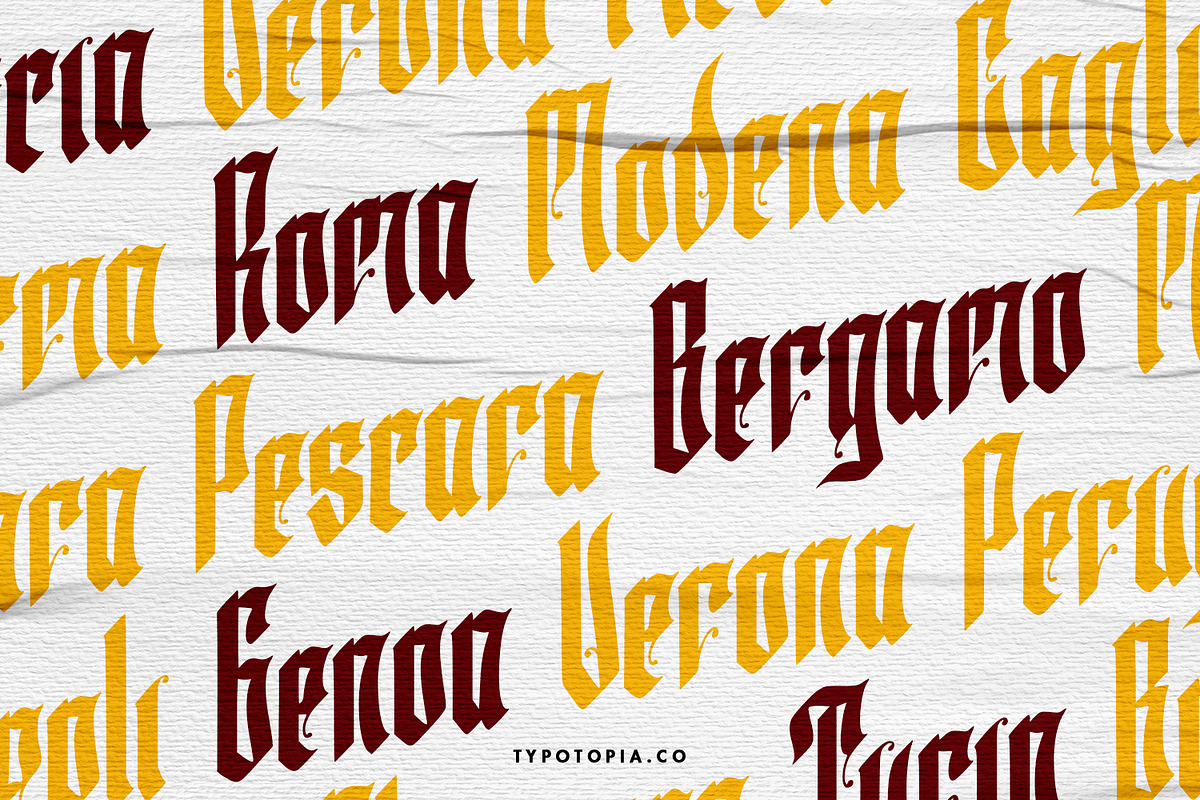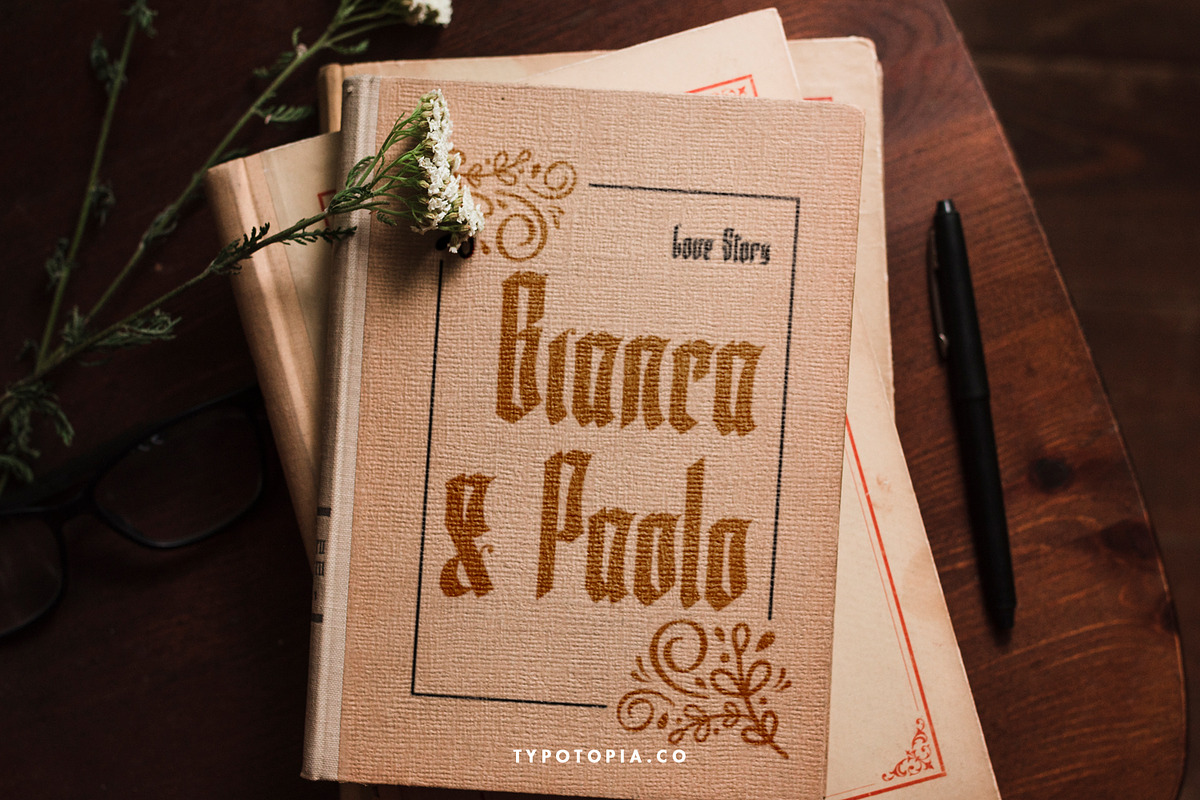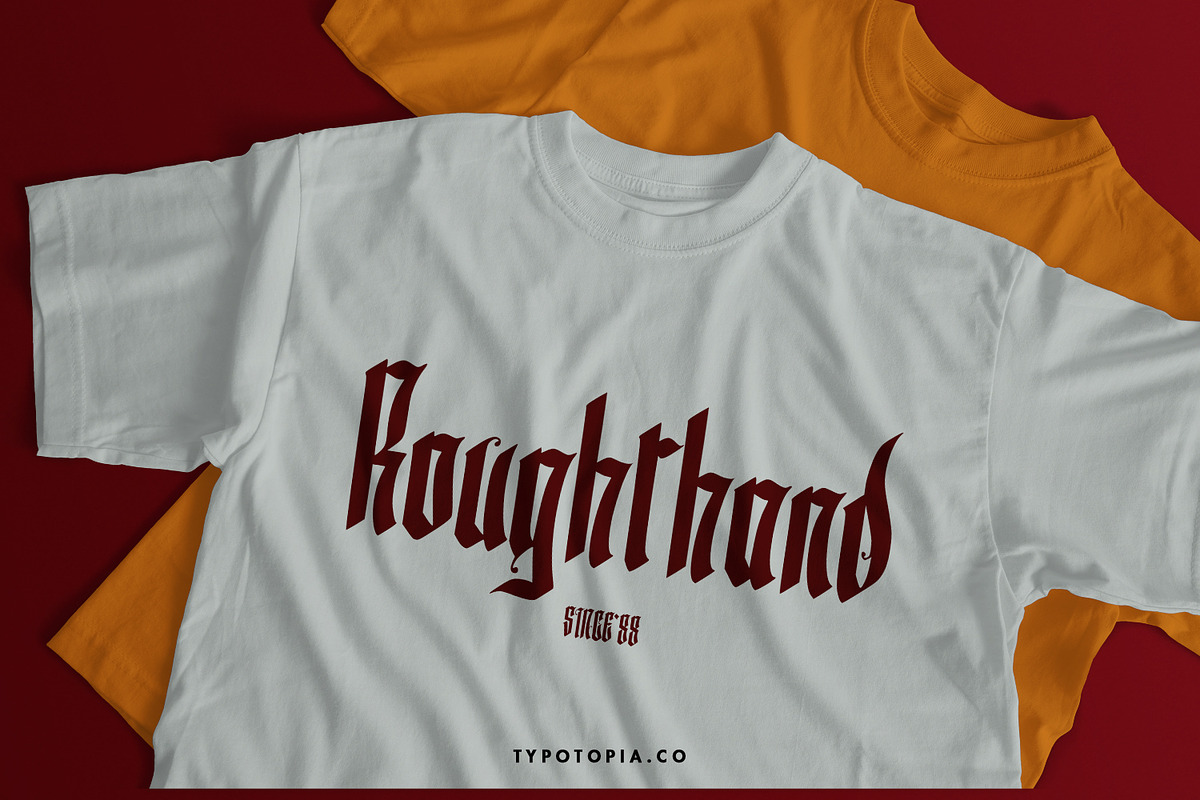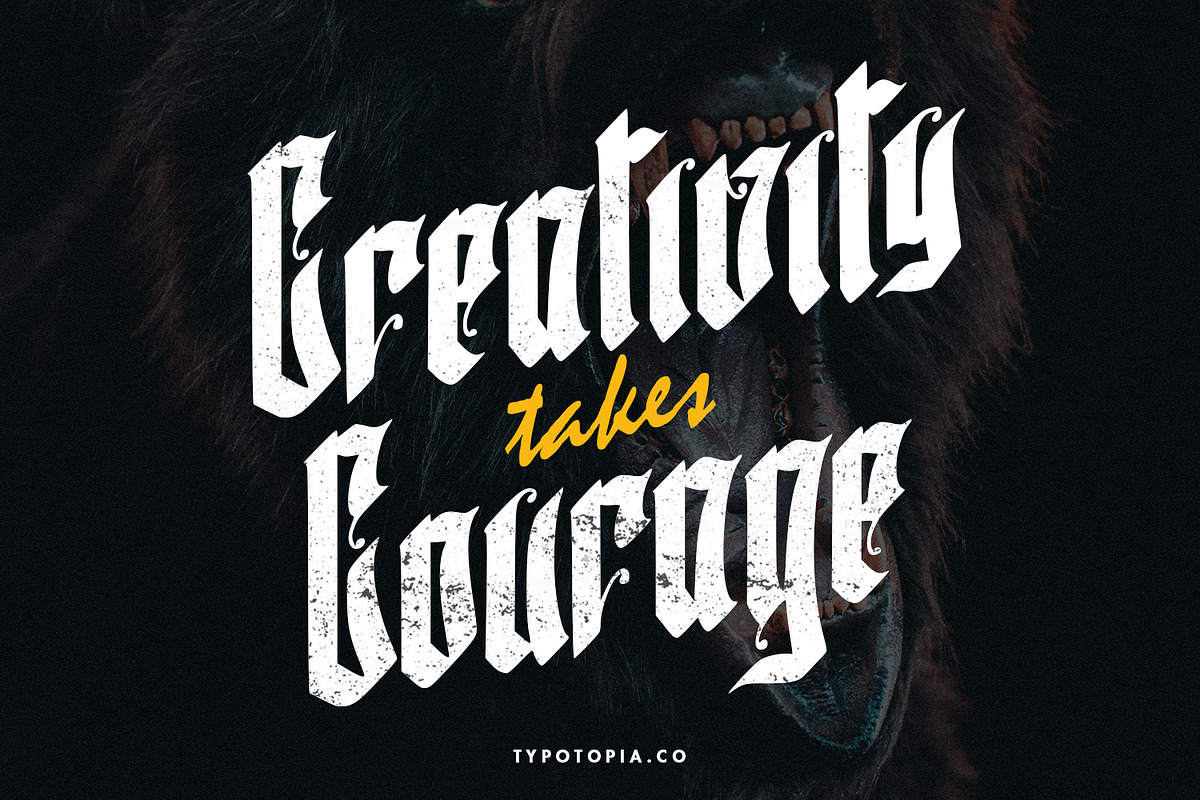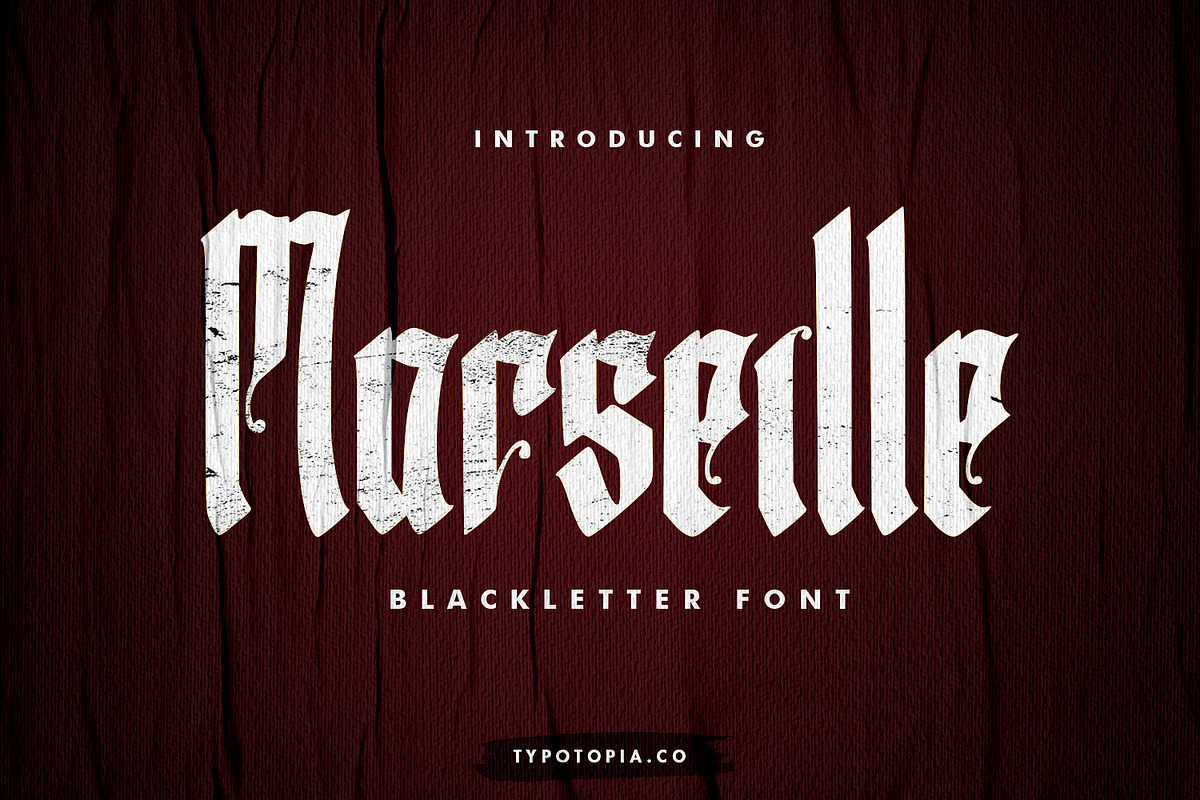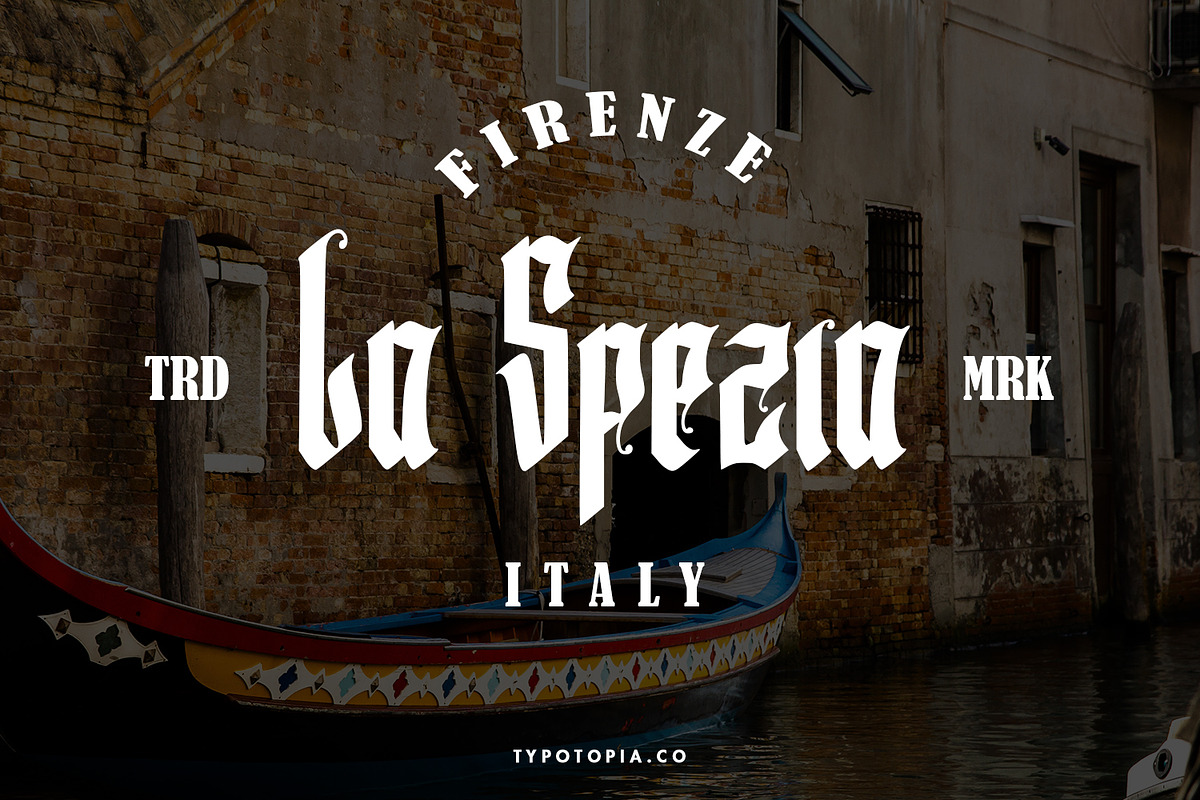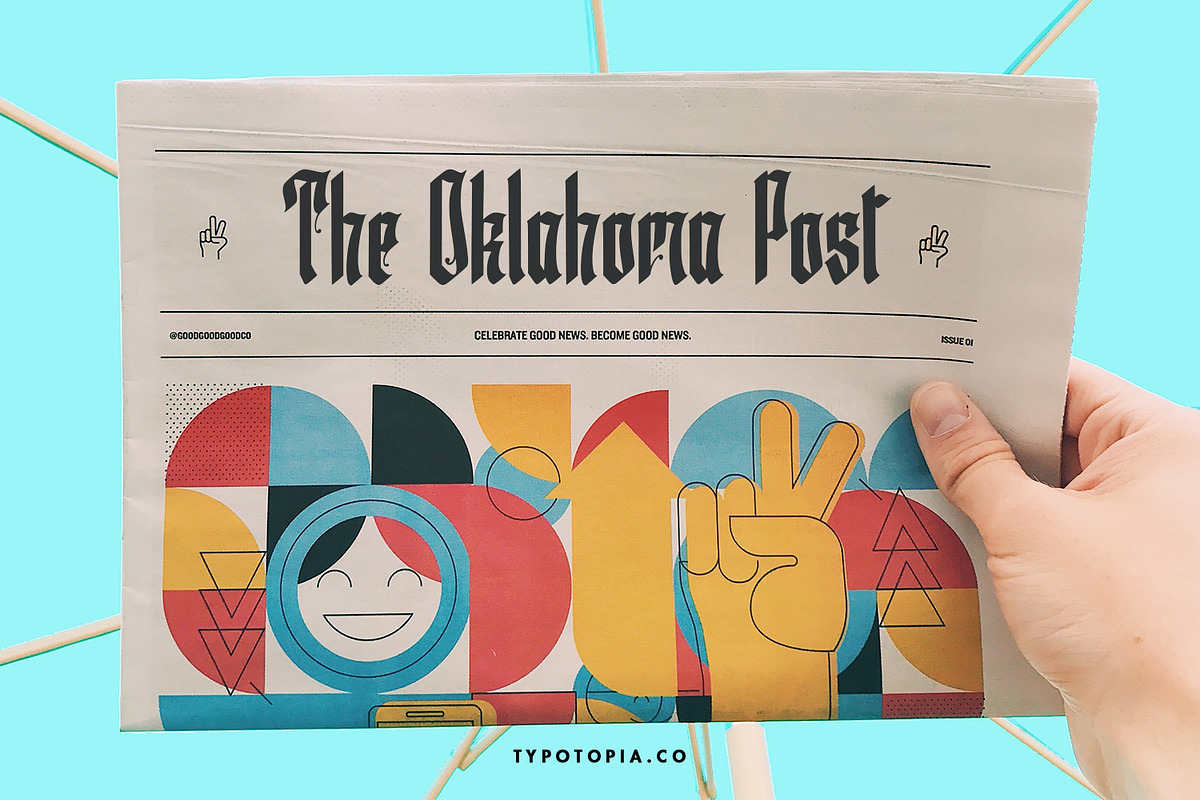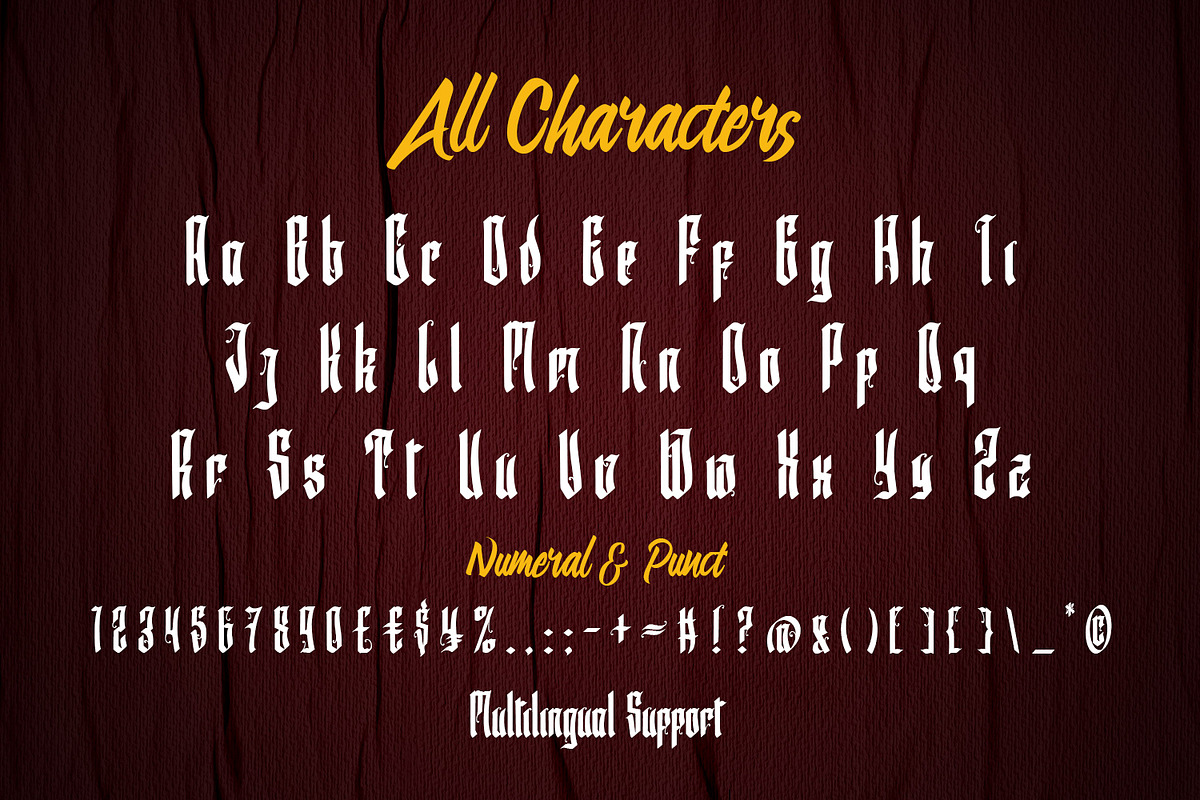
Marseille - Blackletter Typeface
Introducing Marseille The Blackletter Typeface, Marseille is an unique blackletter for your design. This Font Includes uppercase, lowercase and punctuations and international characters. Marseille also great choice for several purpose, it suitable for for headline, logotype, apparel, invitation, branding, packaging, advertising etc.
Marseille also Support Multilingual Feature for Foreign Language, here’s the list :
áäåãéèëìïîòöôøùüAÀÁÂÃÄÅEÈÉÊËIÌÍÎÏNÑOÒÓÔÕÖUÙÜÚÛYÝŸ?Ÿ
Uppercase & Lowercase letters